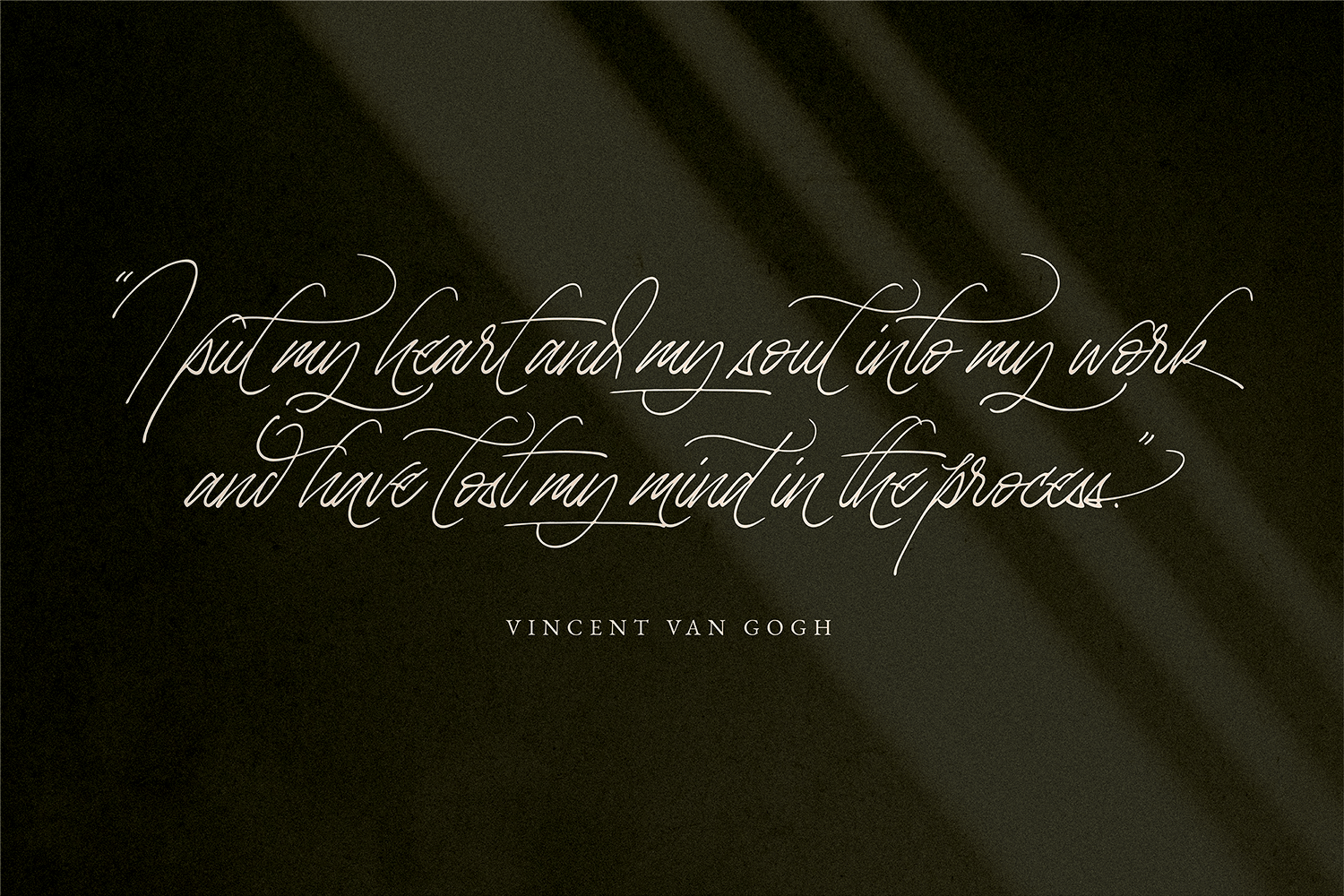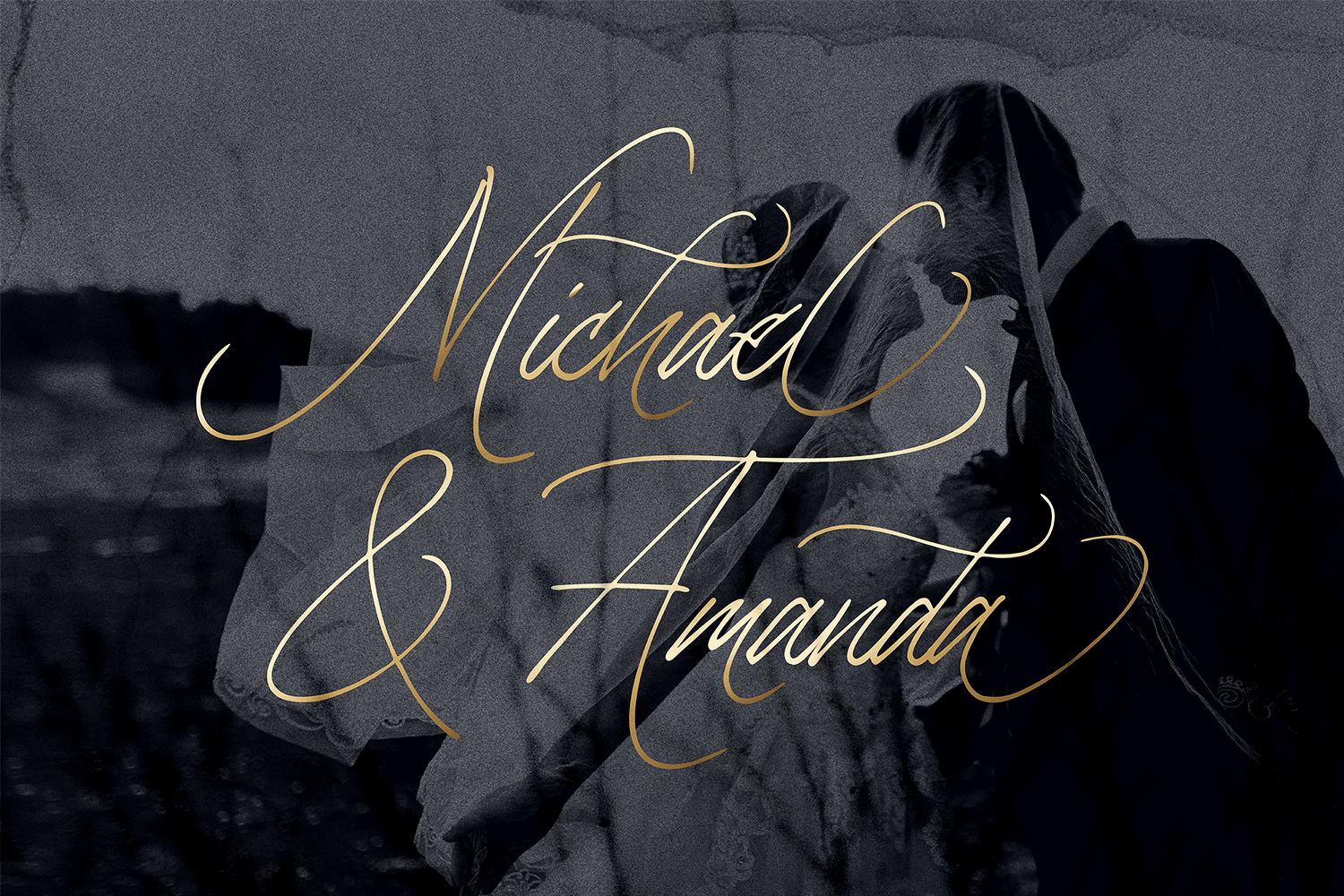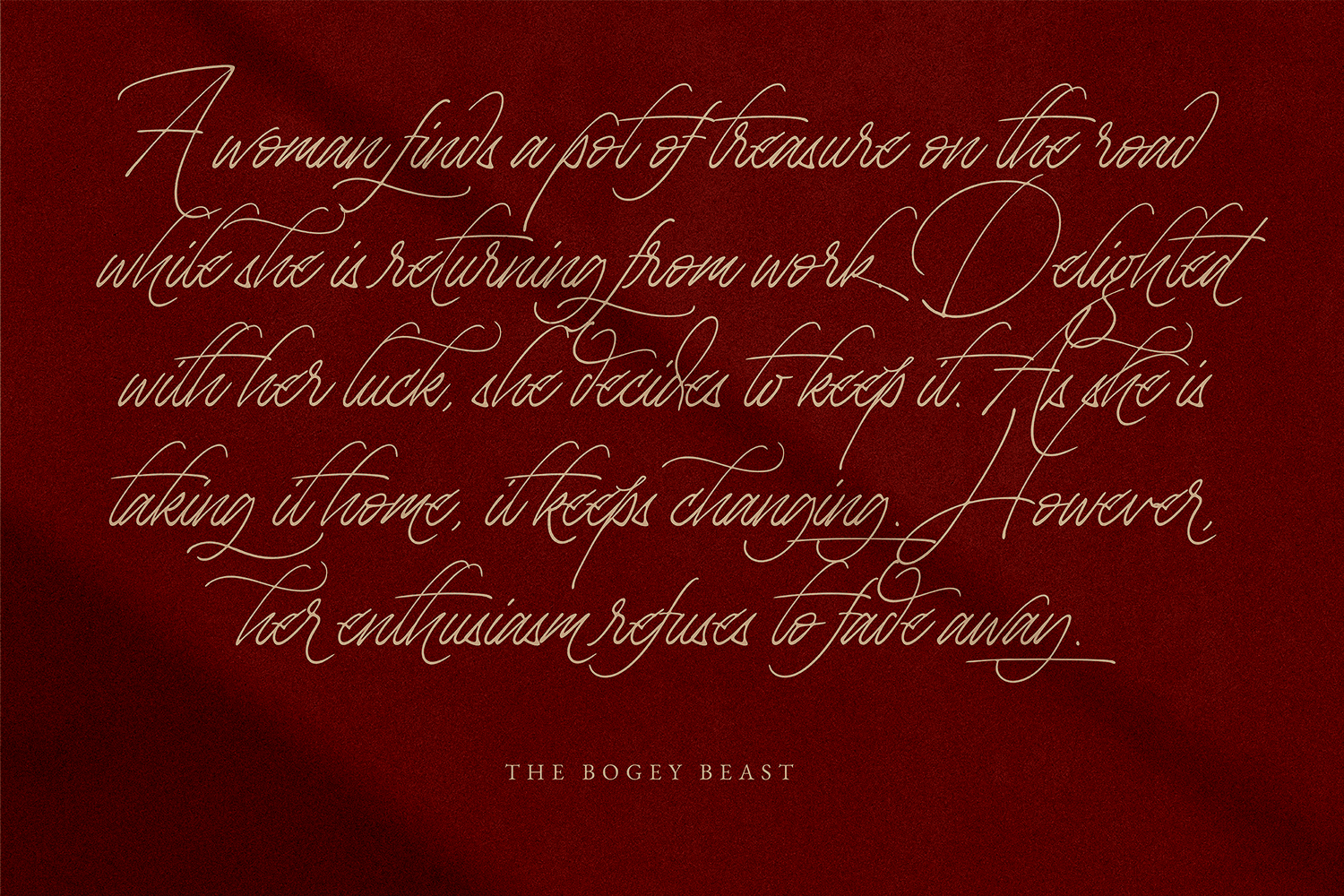
La Monte Font
La Monte Handwritten Font
This is a calligraphy font with a classic and natural feel. With natural touches and detailing, La Monte also brings an elegant impression that will bring your designs to a different class. La Monte contains many alternatives to each letter which makes this font attractive and stylish. La Monte also comes with multilingual supports.
The classic-elegant style is perfect to be applied in various formal forms such as invitations, labels, restaurant menus, logos, fashion, make up, stationery, novels, magazines, books, greeting / wedding cards, packaging, labels or any type of advertising purpose.